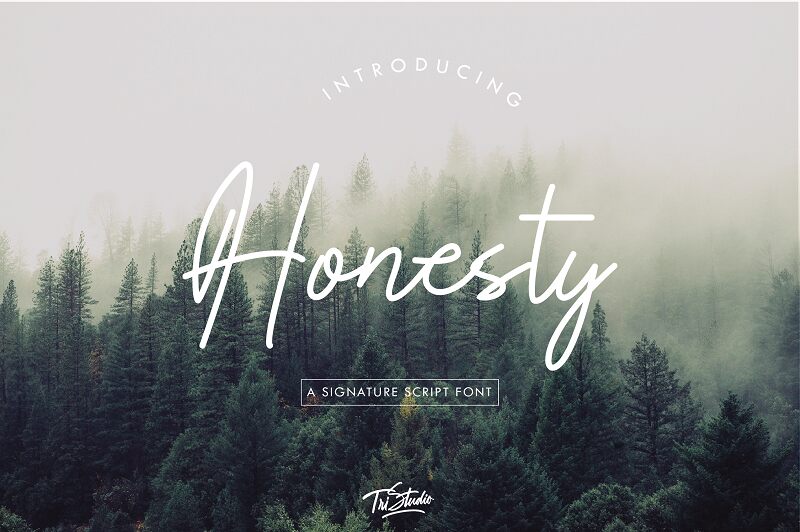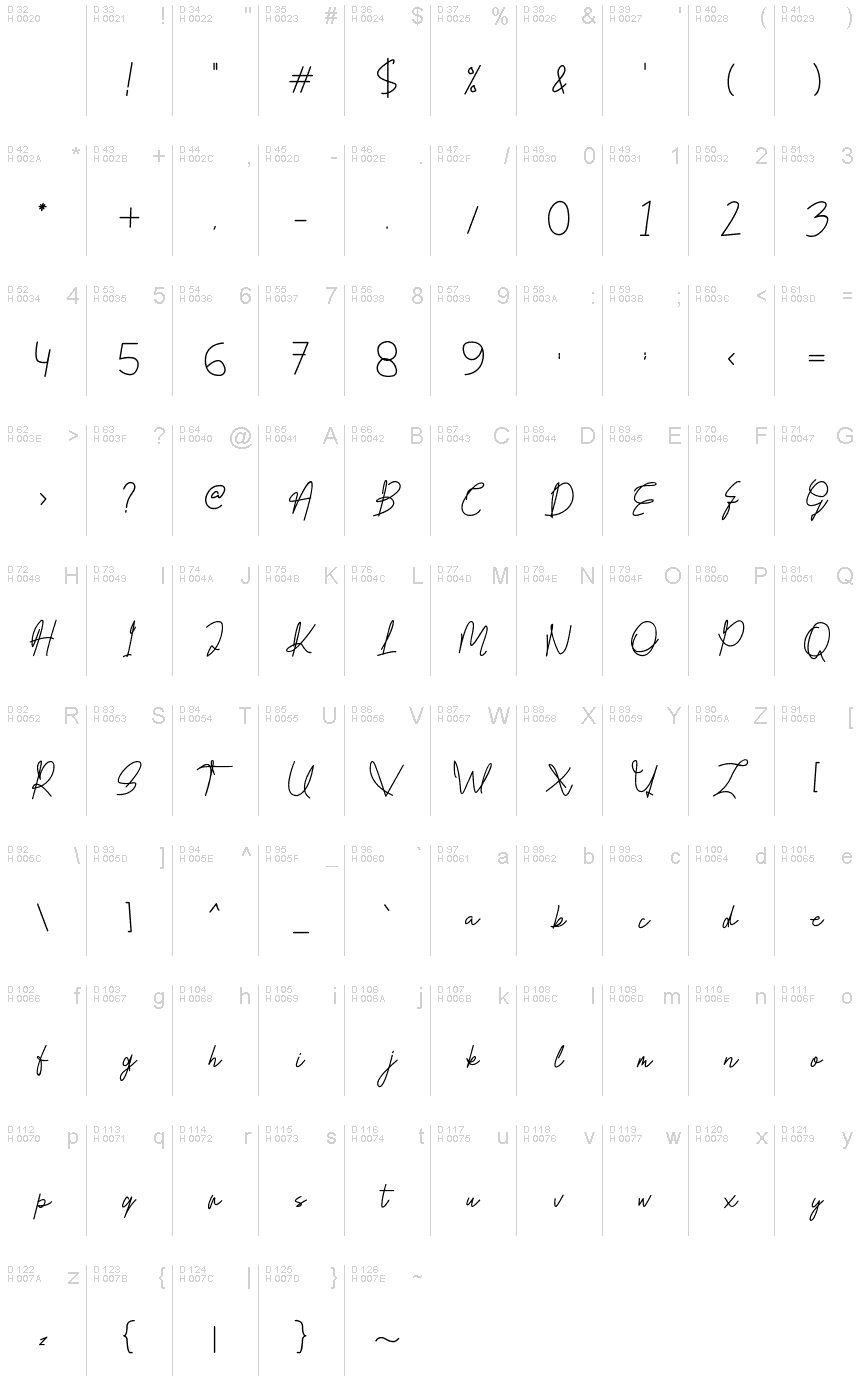
Honesty
Honesty is a font signature, this script font contains capital, lowercase letters, symbols, etc. This font is suitable for use in invitation card designs, watermarks, brochure designs, business cards, t-shirt designs, and more.